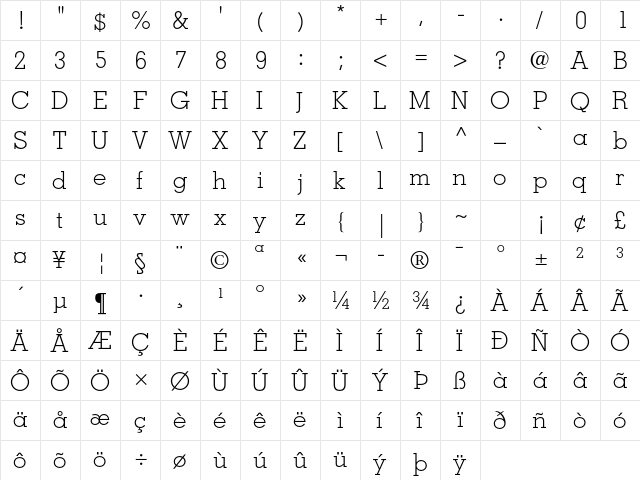
Memphis LT Std Light
| Designer | Dr. Rudolf Wolf |
Design Context for Memphis LT Std Typeface
Memphis LT Std offers clean, dependable letterforms without strong stylistic allegiance, making it a practical choice for designers who need flexibility. Its slender proportions lend an understated elegance to any composition.